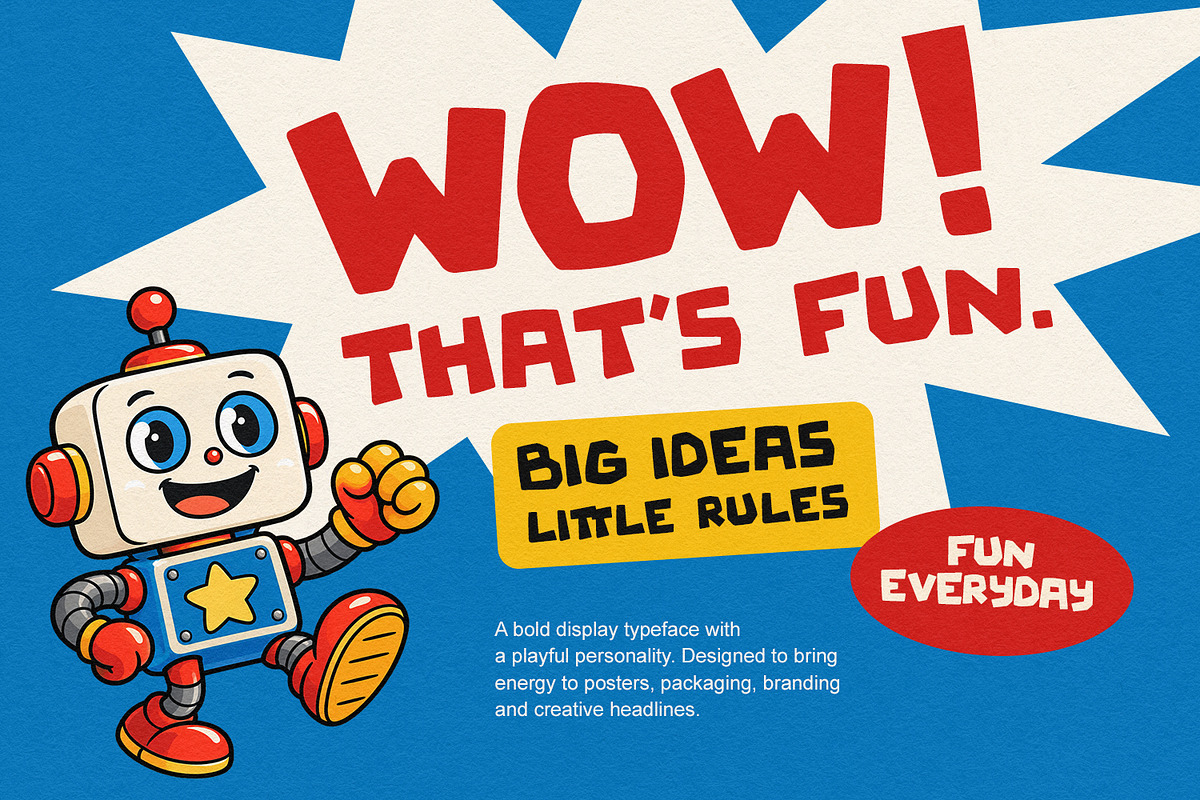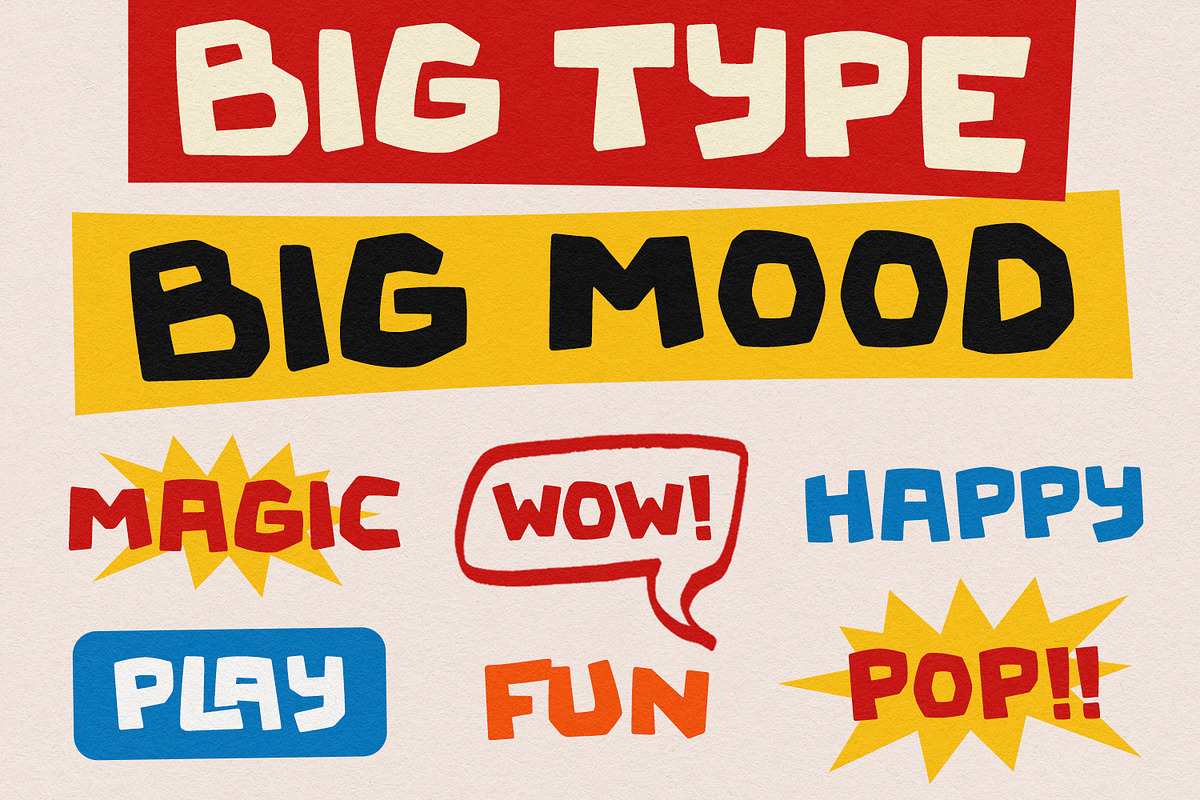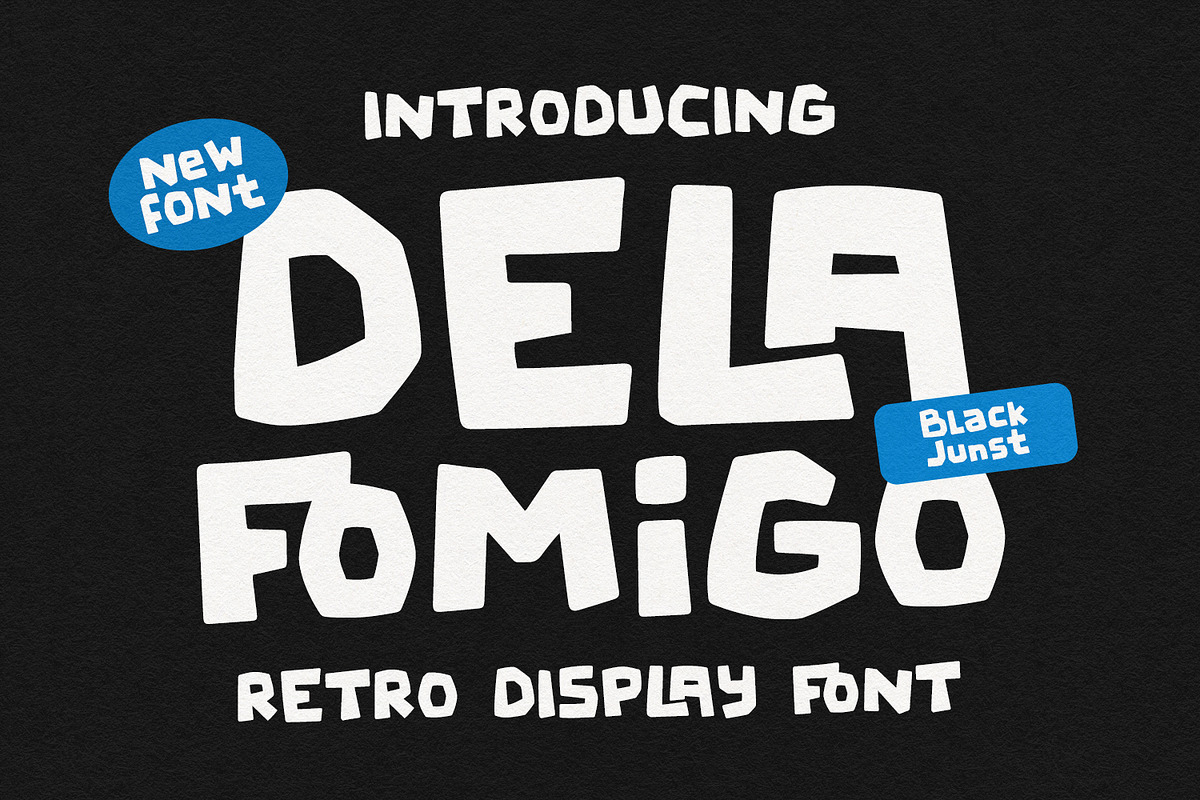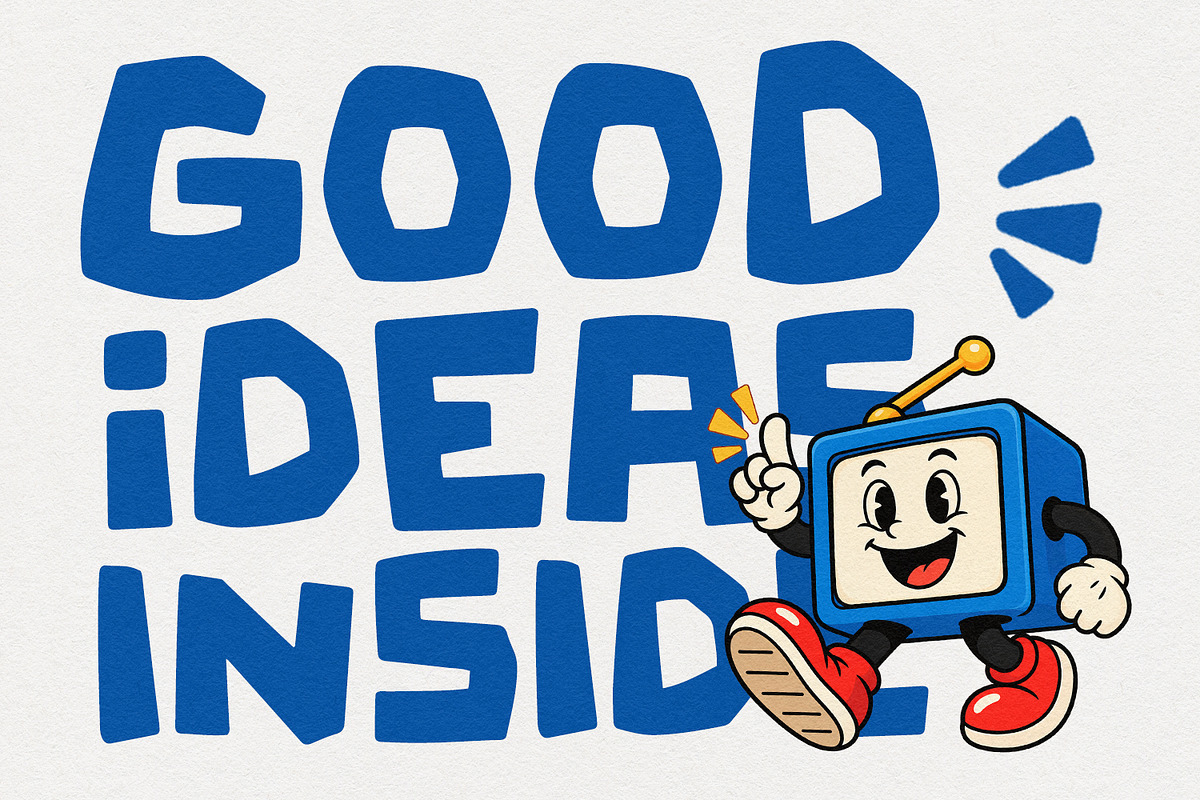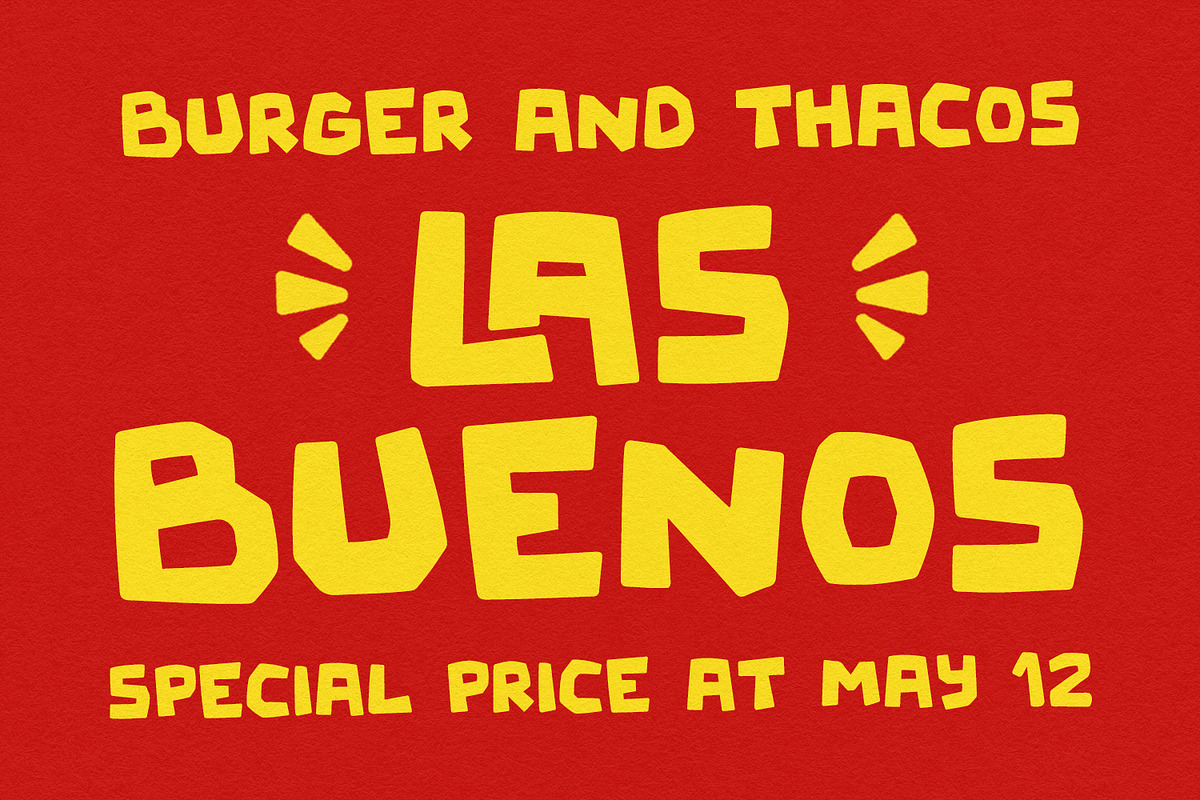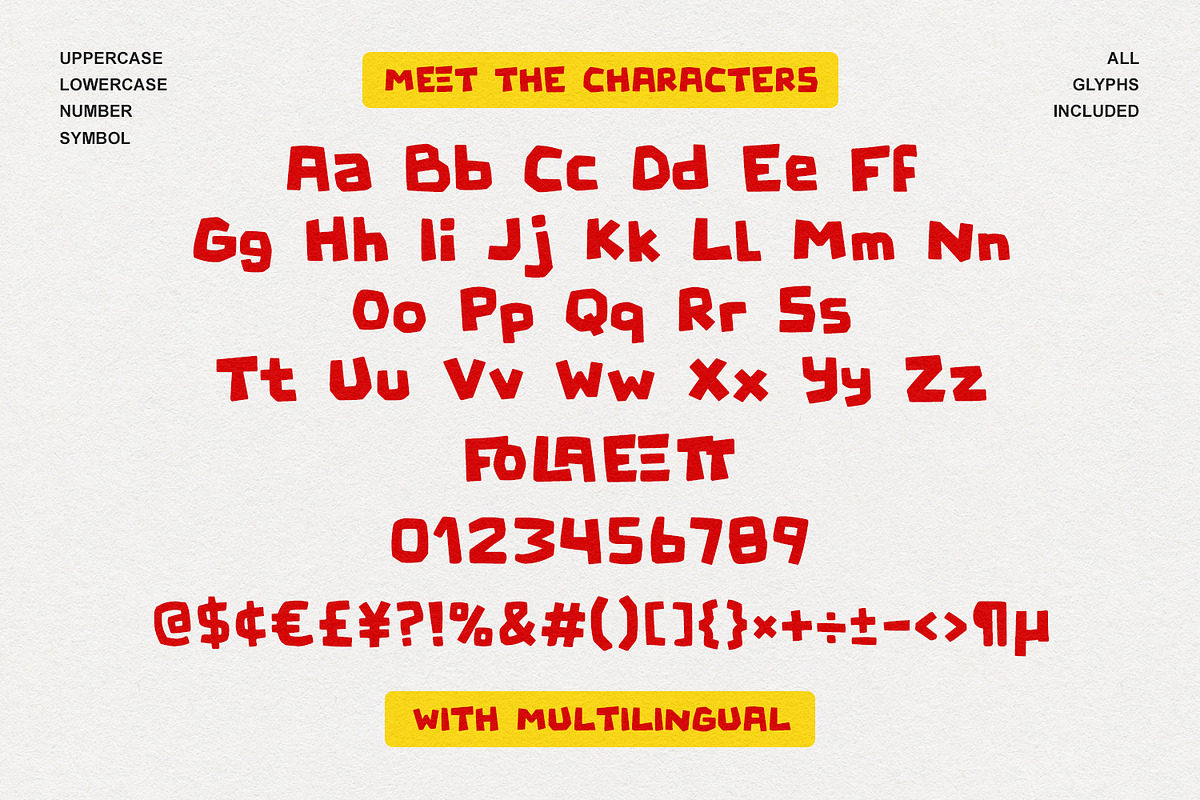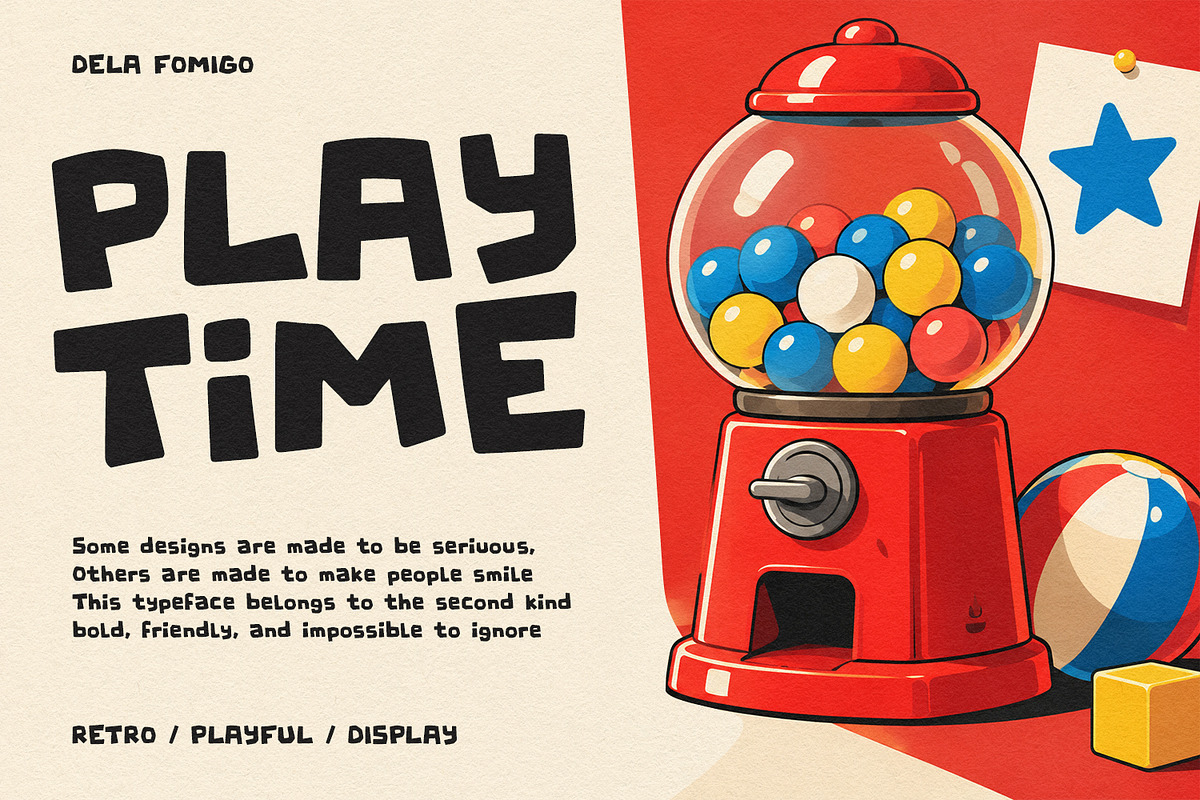
Dela Fomigo – Retro Display
Dela Fomigo is a bold retro display font with a playful hand-drawn character and chunky, expressive letterforms. Inspired by vintage lettering, retro graphics, and nostalgic design, it brings an energetic personality to every project.
Perfect for retro branding, posters, apparel, logos, packaging, stickers, album artwork, social media graphics, badges, merchandise, and eye-catching headlines.
Its irregular hand-drawn shapes give your designs a fun handmade feel while keeping the typography bold, readable, and highly distinctive.
Dela Fomigo is perfect for designers looking for a retro display font with personality, attitude, and vintage charm.
Best For
Retro Branding
Vintage Posters
Apparel & Streetwear
T-Shirt Design
Packaging
Stickers
Badges
Album Covers
Social Media
Headlines